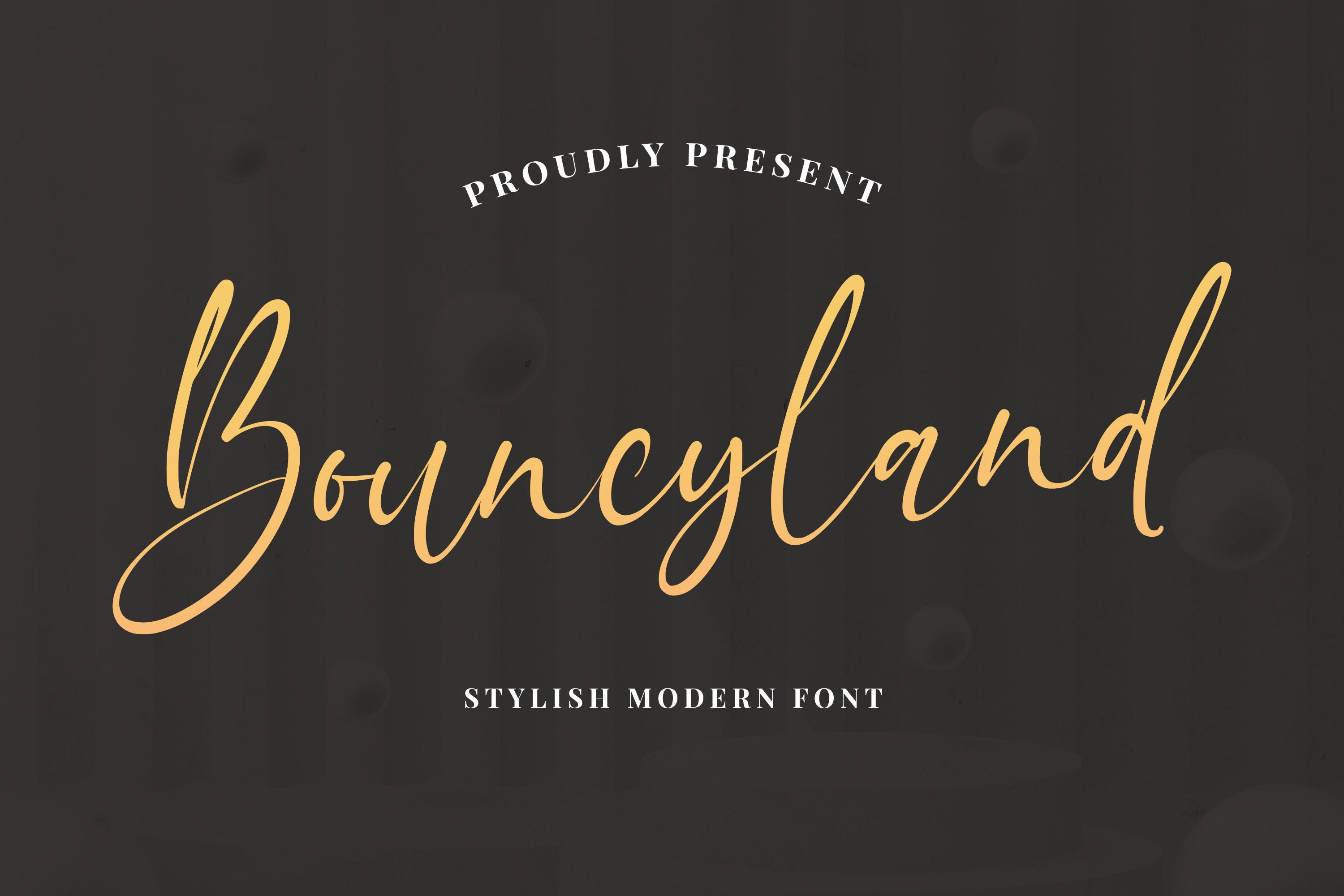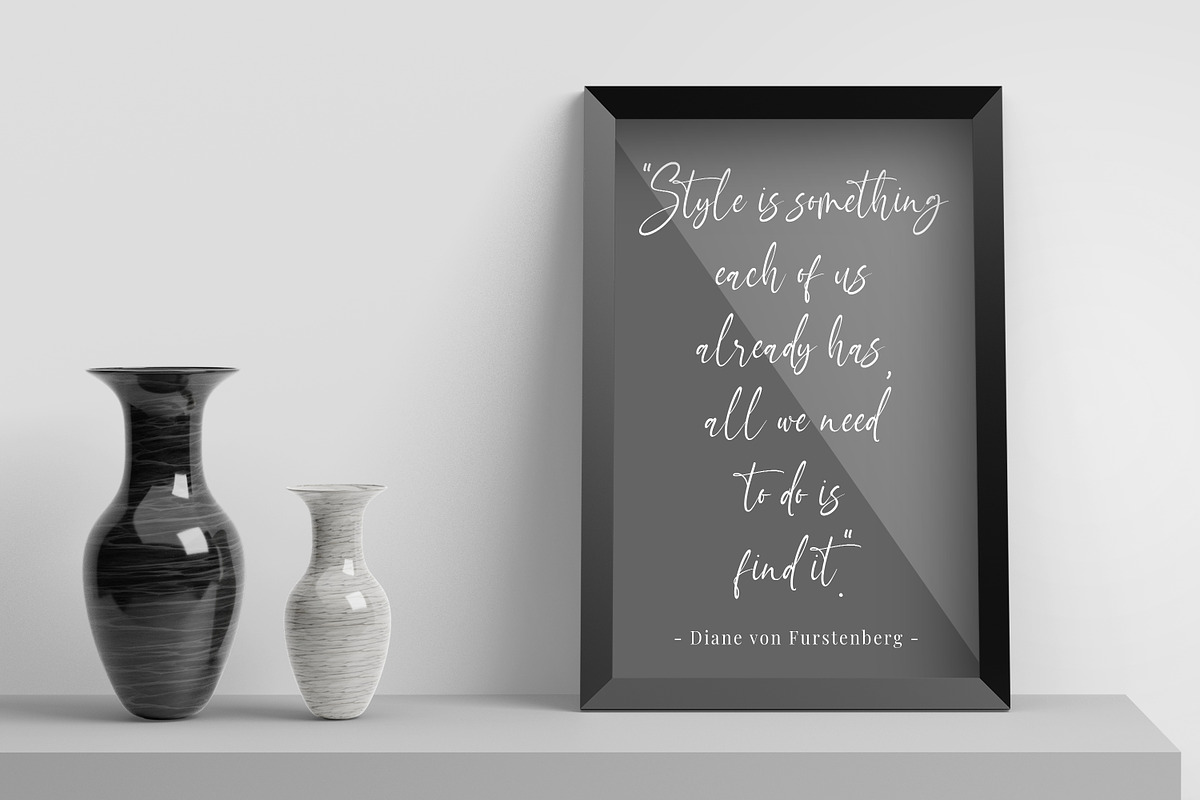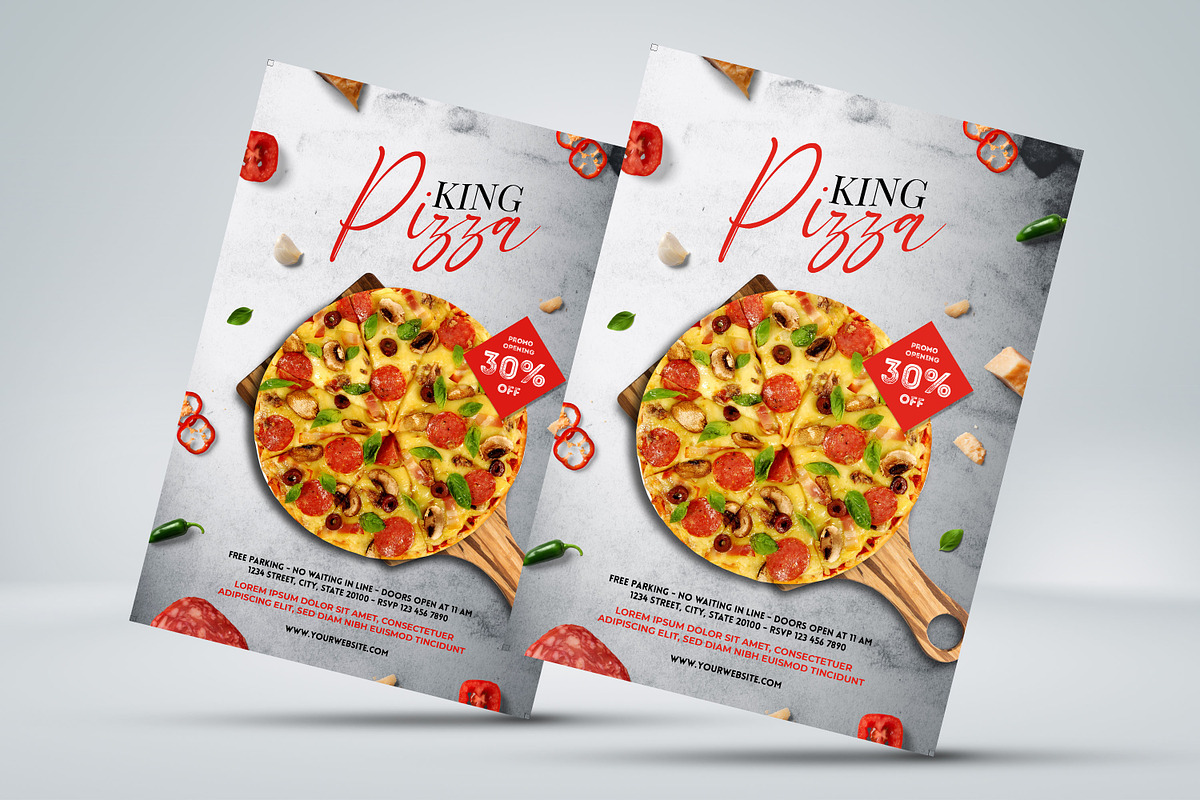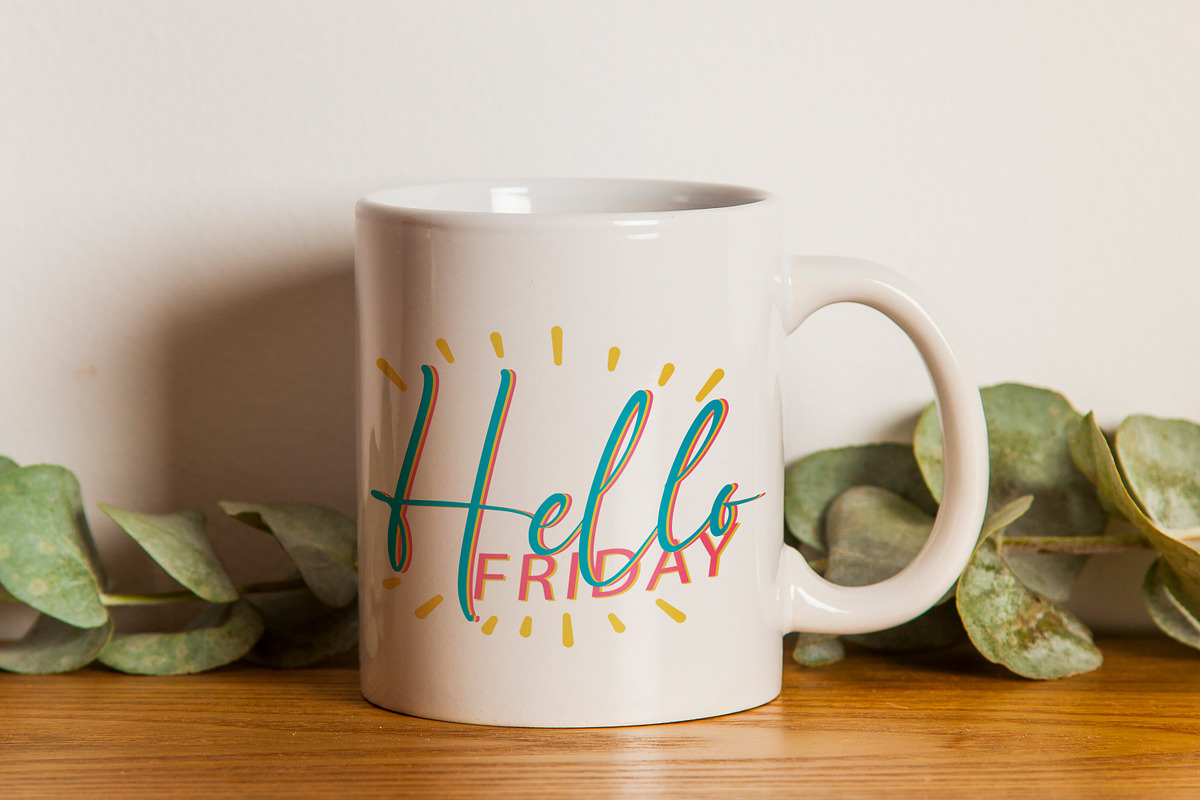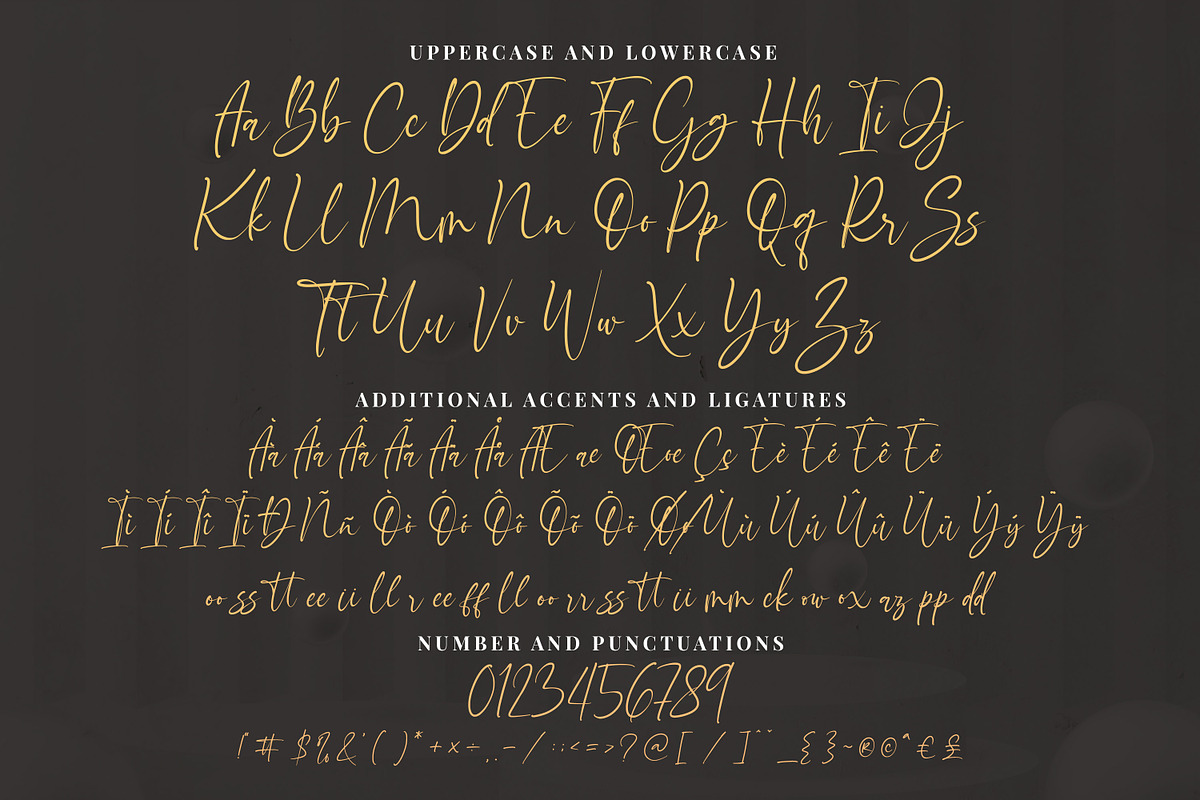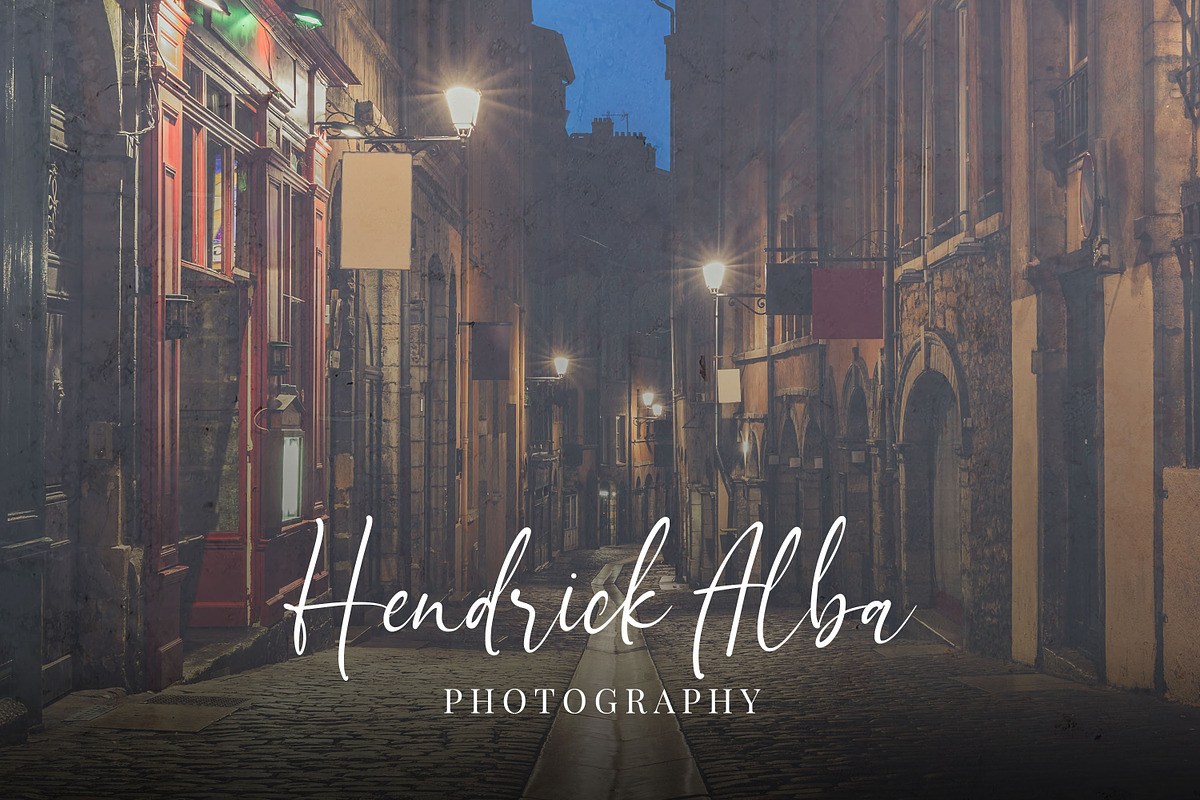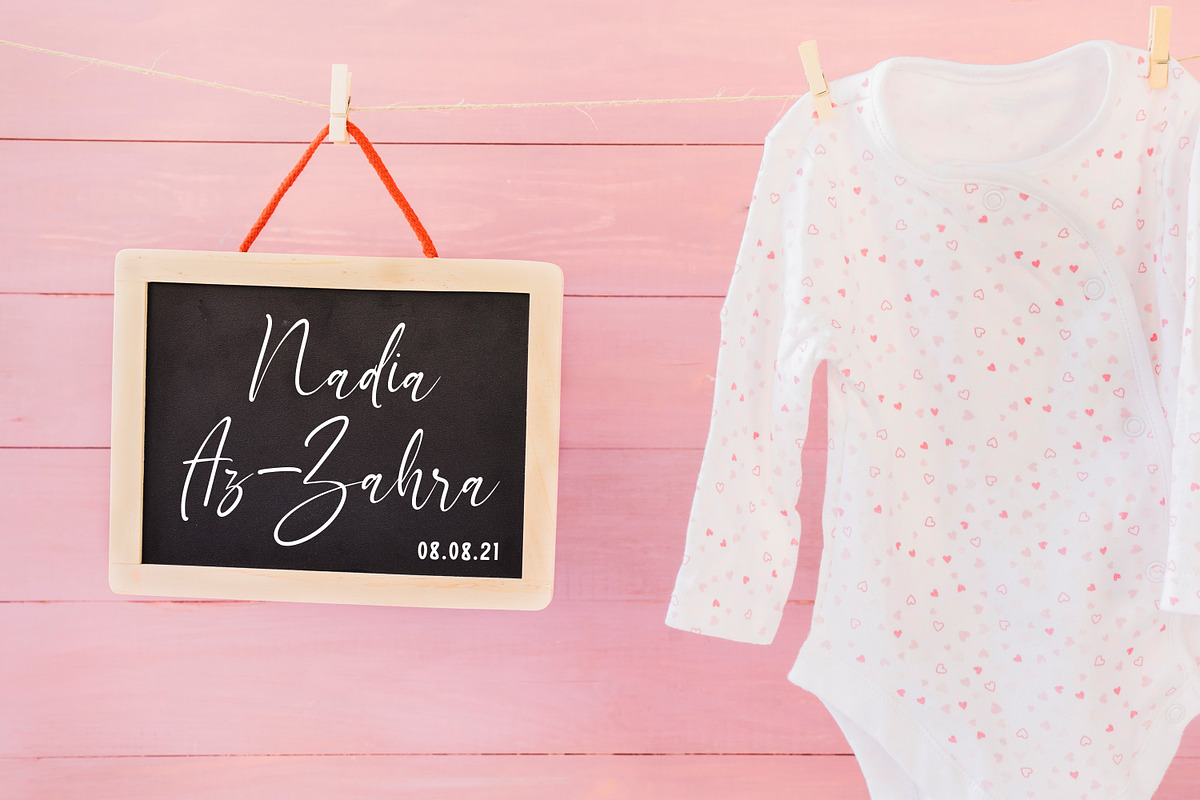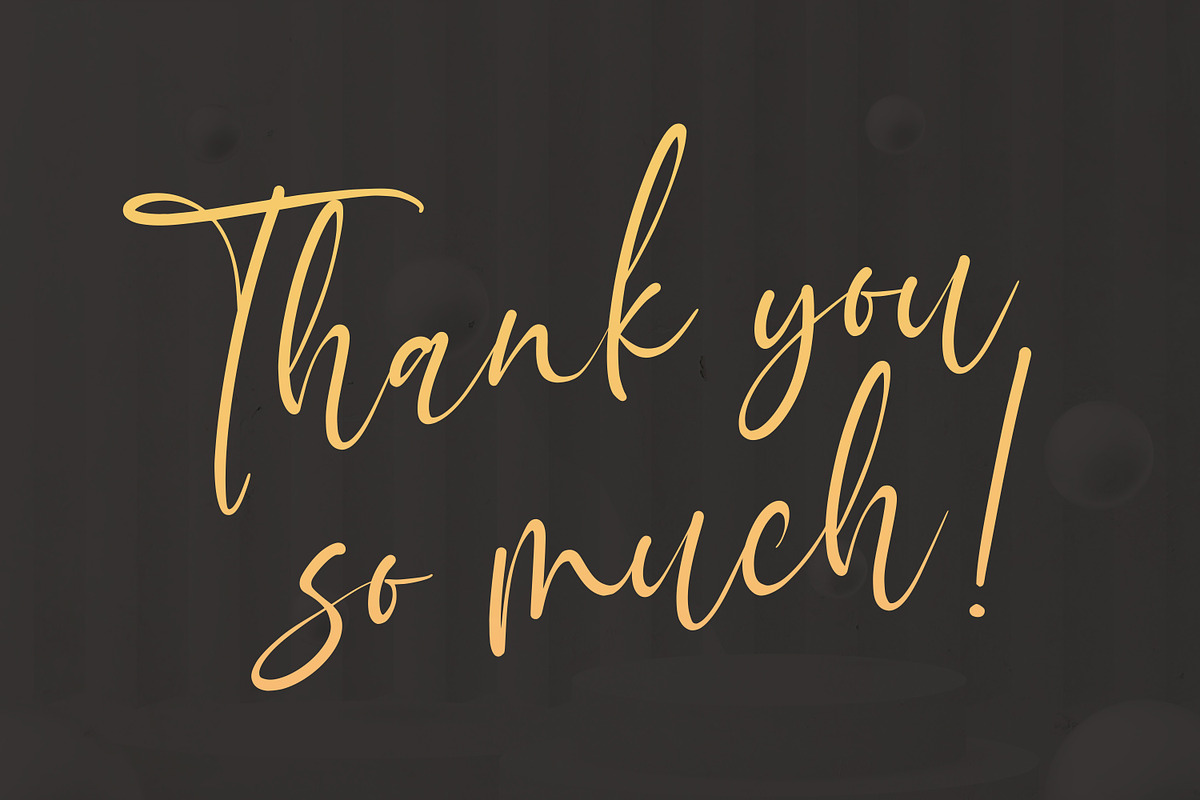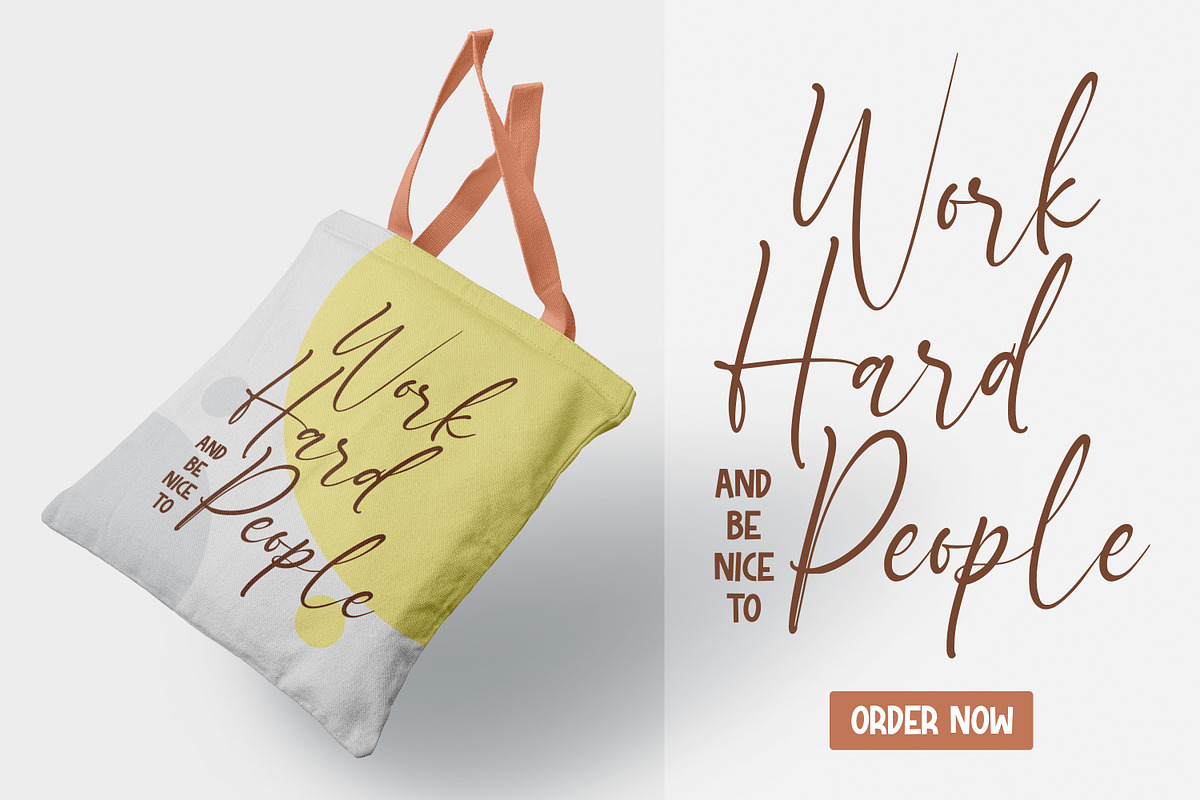
Bouncyland - Stylish Modern Font
Bouncyland - Stylish Bouncy Script font with a natural handwritten feel. This handmade font will make your design has a beautiful natural touch for each details. It is perfect for any design project as Invitation,logo, book cover, craft or any design purposes. This font is PUA encoded which means you can access all of alternate glyphs and ligatures.